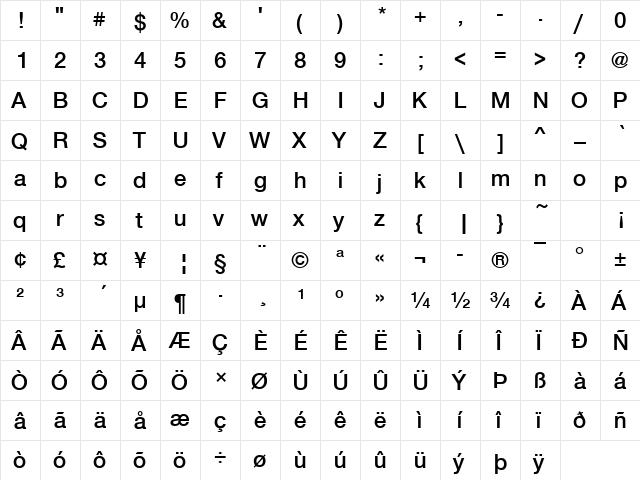
NimbusSanNovDSemBol Regular
Design Context for NimbusSanNovDSemBol Typeface
NimbusSanNovDSemBol is a composed and adaptable typeface that performs quietly and consistently across a wide range of design contexts.
Pro Tip: Use NimbusSanNovDSemBol in both headline and body roles to test its range before committing to a single application.